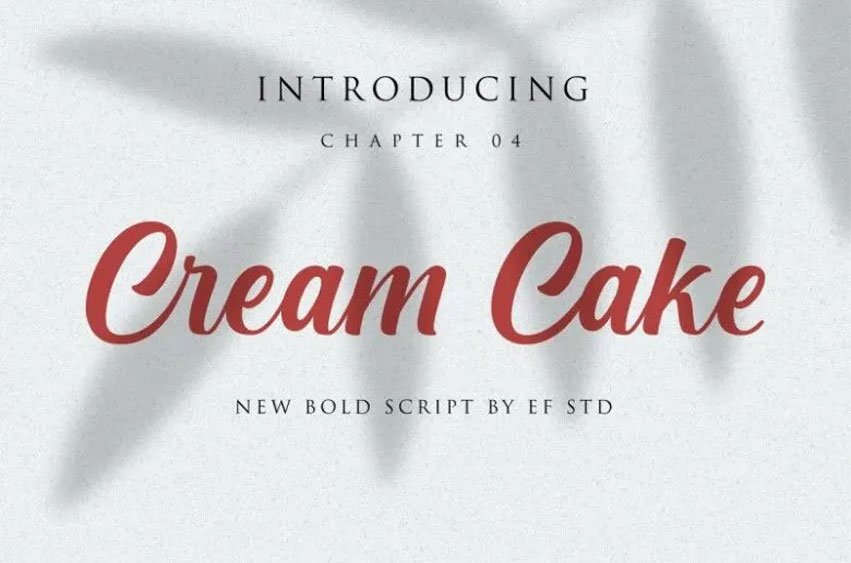
Cream Cake Font are introduced to which the modern hand scratches are applied.
I hope this font will be suitable for you and can be easily and simply used for your work because it has a lot of features, containing a complete set of lower and upper case letters, matched punctuation and numbers and multilingual support.